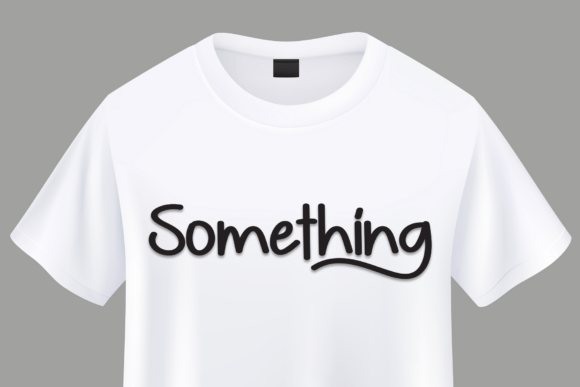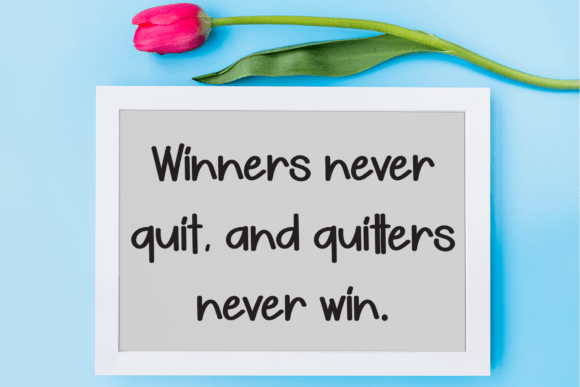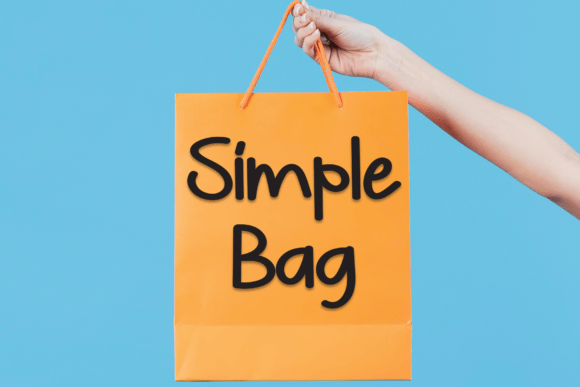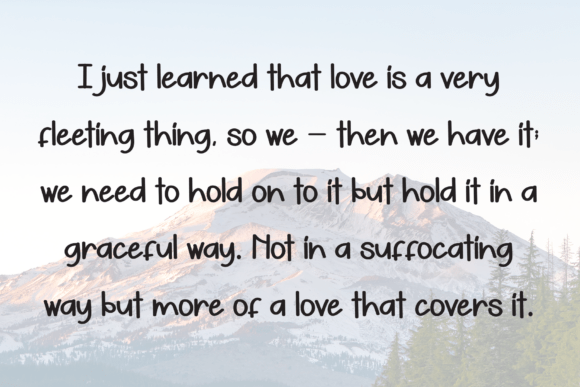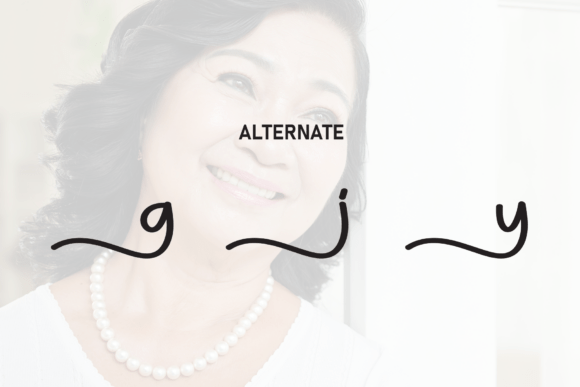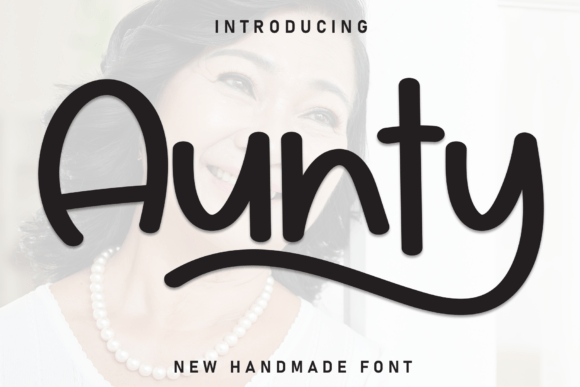
Introducing Aunty Font: The Warmth and Charm of Handmade Typography
In the world of digital design, finding the perfect font that conveys warmth, approachability, and personality can be a daunting task. However, with Aunty Font, your search is over. Aunty is a beautiful, handmade font that embodies the charm of casual handwriting, making it an ideal choice for a wide range of creative projects. From heartfelt greeting cards and inspiring quotes to logos, product packaging, and social media posts, Aunty Font is the perfect companion for designers and crafters looking to add a touch of authenticity and comfort to their work.
The Characteristics of Aunty Font
Aunty Font is distinguished by its smooth curves and bold strokes, which give it a friendly and personal feel. The font’s flowing baseline and lively rhythm add a touch of energy, making it perfect for designs that require a bit of dynamism and movement. Despite its playful nature, Aunty Font boasts a clean design that ensures clarity and versatility across both digital and print media. This balance of style and functionality makes Aunty Font an excellent choice for various applications, from digital content to physical products.
Versatility and Application
One of the standout features of Aunty Font is its incredible versatility. Its warm and approachable nature makes it suitable for a wide array of projects, including:
- Greeting Cards and Quotes: Add a personal touch to your cards and quotes with Aunty Font’s heartfelt and handcrafted feel.
- Logos and Branding: Use Aunty Font to create logos and brand identities that exude warmth, friendliness, and approachability.
- Product Packaging: Elevate your product packaging with a font that conveys care, authenticity, and personality.
- Social Media Posts: Make your social media content stand out with Aunty Font’s unique charm and character.
Technical Details and Benefits
Why Choose Aunty Font?
In a sea of digital fonts, Aunty Font stands out for its unique blend of warmth, personality, and versatility. Here are a few reasons why designers and crafters should consider Aunty Font for their next project:
- Authenticity: Aunty Font brings an authentic, handmade feel to your designs, setting them apart from more generic or automated typography.
- Comfort: The font’s warm and approachable nature makes it instantly comfortable to read and engage with.
- Personality: Aunty Font injects personality into your designs, making them more relatable and engaging to your audience.
Aunty Font is more than just a font – it’s a way to bring warmth, comfort, and personality to your designs. Whether you’re a professional designer or a crafter looking for the perfect typography for your project, Aunty Font offers a unique combination of style, versatility, and authenticity. With its smooth curves, bold strokes, and flowing baseline, Aunty Font is sure to become your go-to choice for creating heartfelt and engaging content. So why wait? Discover the charm of Aunty Font today and elevate your creative projects to new heights.